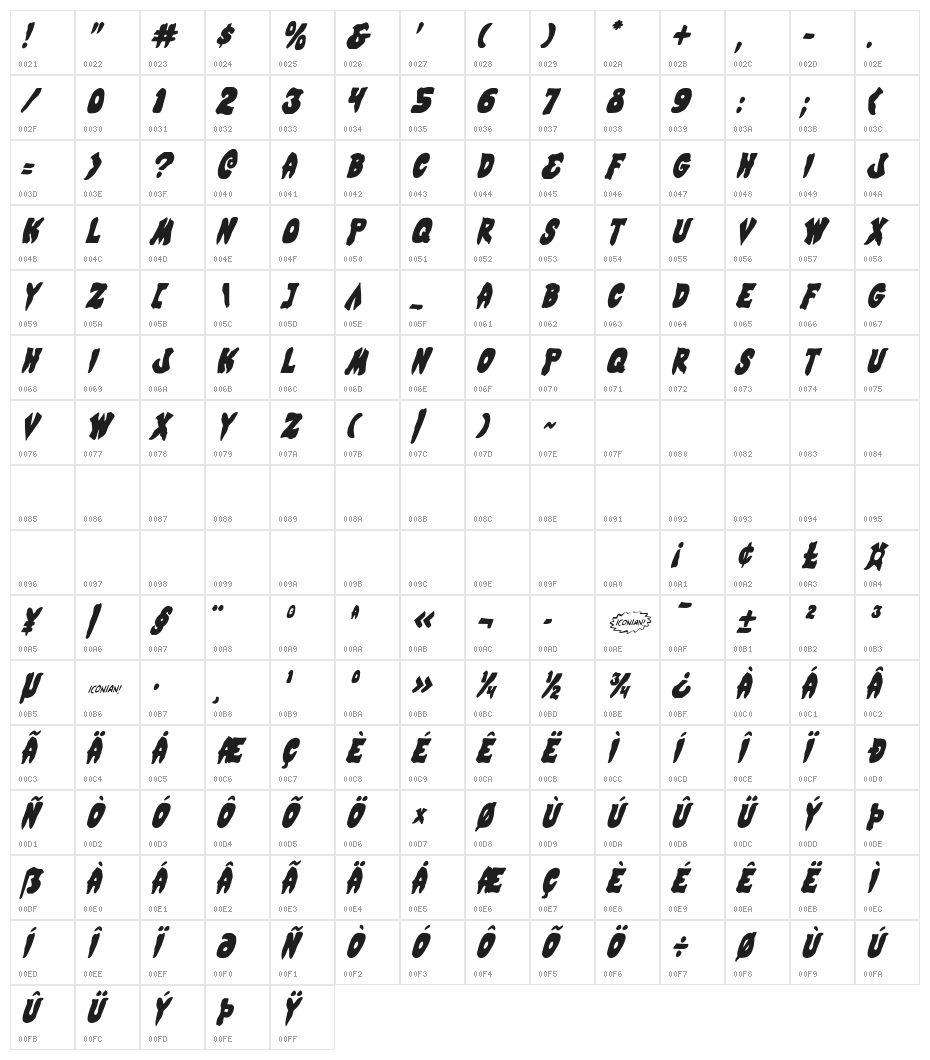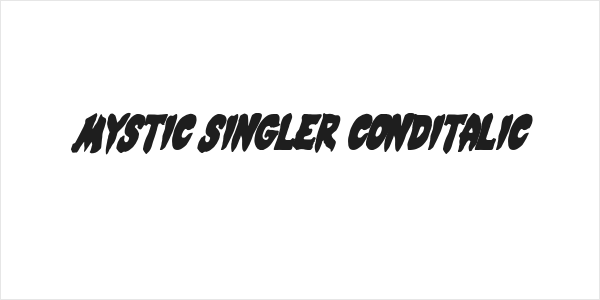
Mystic Singler CondItalic Font
Mystic Singler CondItalic Description
This font features a bold and dynamic style with a strong emphasis on movement and energy. The characters are heavily slanted, giving an italicized appearance that enhances its fluidity. Each letter is crafted with thick strokes and sharp edges, creating a sense of urgency and impact. The font's condensed nature allows for tight spacing, making it ideal for creating attention-grabbing headlines or titles. Its unique design is both modern and edgy, perfect for projects that require a bold statement. The numbers and special characters maintain the same energetic style, ensuring consistency across all text elements.
| Proposed Projects | Ideal for music album covers, sports event posters, urban fashion branding, and dynamic advertising campaigns. |